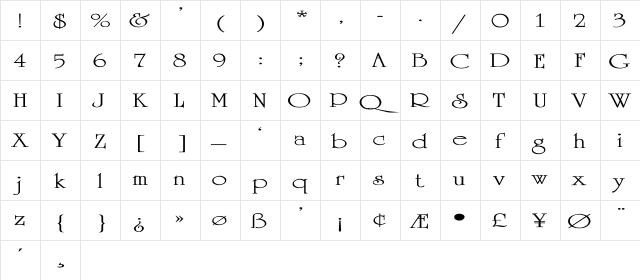
University-Thin Ex Regular
Design Context for University-Thin Ex Typeface
University-Thin Ex is a composed and adaptable typeface that performs quietly and consistently across a wide range of design contexts. Its slender proportions lend an understated elegance to any composition.